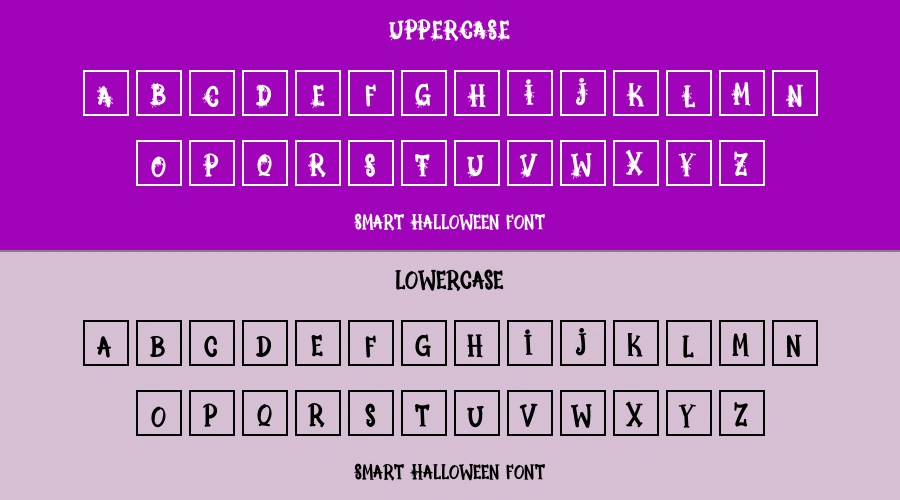
About Smart Halloween Font
Smart Halloween Font stands out for its distinctive combination of contextual swashes and rhythmic flow. Ideal for heritage brands, it provides the adaptability and cultural authenticity that professional projects demand. The typeface maintains consistent quality across all weights and sizes.
Key features include refined structural clarity and practical terminal forms, enhancing typographic expression. In warning labels applications, Smart Halloween Font demonstrates exceptional microfilm readability. The joint detail and contemporary relevance contribute to its distinctive character and professional appeal.
Smart Halloween Font |